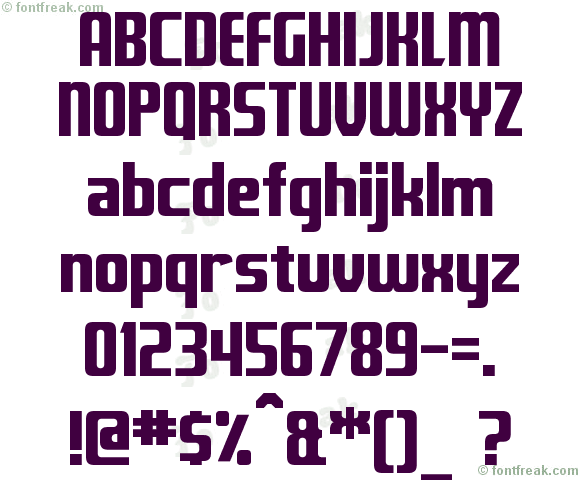
Fontana
Fontana, designed by Neale Davidson in 2011, is a striking sans-serif font that encapsulates modern simplicity and elegance. The font features a bold stroke weight that provides a commanding presence, yet maintains a clean aesthetic through its well-balanced spacing. With minimal contrast between thick and thin strokes, Fontana exudes a contemporary feel, making it highly versatile for various design applications. Its geometric forms combined with subtle rounded edges lend a friendly and approachable character, making it ideal for both digital and print media.
This font is particularly well-suited for use cases such as wedding invitations, where its stylish yet legible design can add a touch of sophistication. Additionally, it can elevate movie posters with its boldness, ensuring that titles stand out and capture attention. Restaurant menus can benefit from Fontana's clarity and modern look, making dish names visually appealing and easy to read. Furthermore, small business branding can leverage this font to convey professionalism while remaining accessible, appealing to a wide audience.
What truly sets the Fontana font apart is its ability to blend modernity with versatility. Whether used in a formal or casual setting, it adapts seamlessly, providing a polished look that resonates with audiences. For those seeking a fresh typeface, the Fontana font free download is a perfect option to explore the boundaries of contemporary typography.